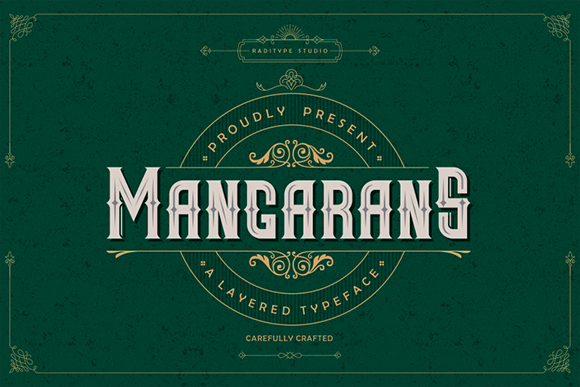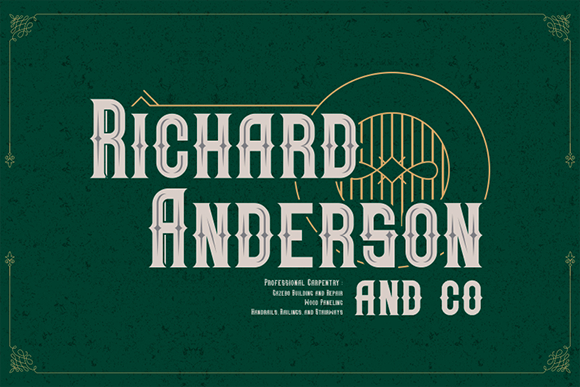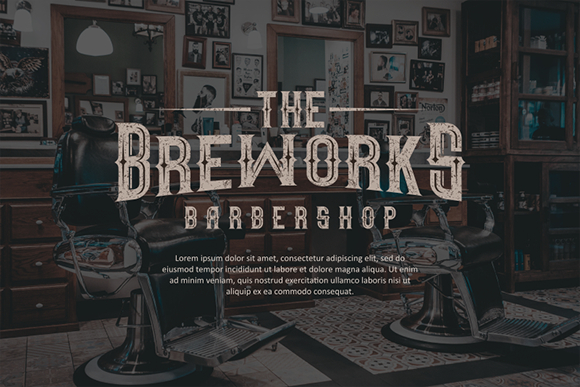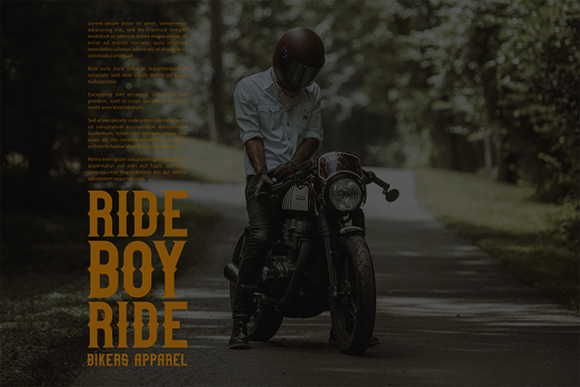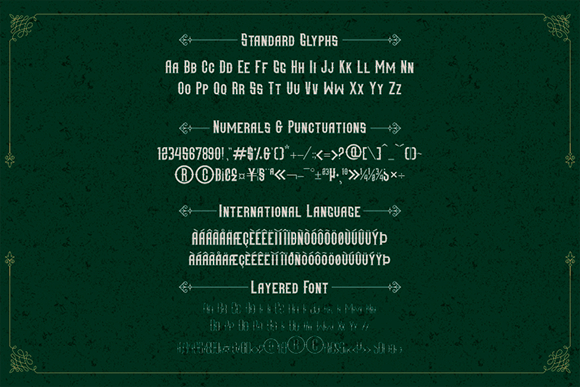
HomeBlackletter FontsMangarans Font Blackletter Fonts Mangarans Font FacebookXPinterestWhatsApp Mangarans Font Poster 2 Mangarans Font Poster 3 Mangarans Font Poster 4 Mangarans Font Poster 5 Mangarans Font Poster 6 Mangarans Font Poster 7 Mangarans Font Poster 8 About Mangarans Font Mangarans is a stunning vintage font with amazing letters. Get inspired by its retro feel. DOWNLOAD ON CREATIVE FABRICAThis font is sold and delivered by Creative Fabrica. Font Canyon may earn a commission if you buy through this link. People also explored Wrist Hand Font Dreskoth Font Summer Coast Font Gloriana Font Dainty Catsy Font Romantika Font Fialiga Font Mhalika Font Handcraft Font 331 0 TagsMangarans Font Previous articlePalmona Plus FontNext articleKoch Schrift Font LEAVE A REPLY Cancel reply Comment: Please enter your comment! Name:* Please enter your name here Email:* You have entered an incorrect email address! Please enter your email address here Website: Save my name, email, and website in this browser for the next time I comment. Personal Use Free New Normal Personal Use Free Read more about this font Orchid Personal Use Free Read more about this font Monogram Calligraphy Personal Use Free Read more about this font Stronger Personal Use Free Read more about this font BLOG Using Fonts in Digital Marketing: Tips to Strengthen Your Brand Identity In the realm of digital marketing, every visual element plays a crucial role in shaping a brand's identity, and fonts are no exception. The... Top 10 Handwritten Fonts That Elevate Your Designs Where to Buy American Fonts Online in 2024 How to Cut Any Font on Cricut: Convert a Font to SVG (Free)